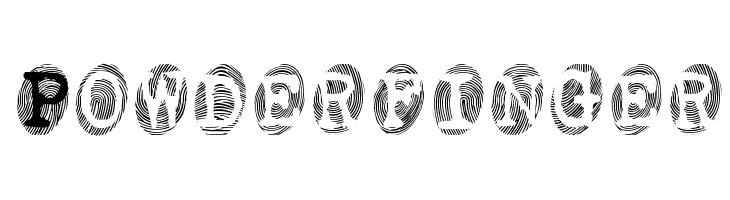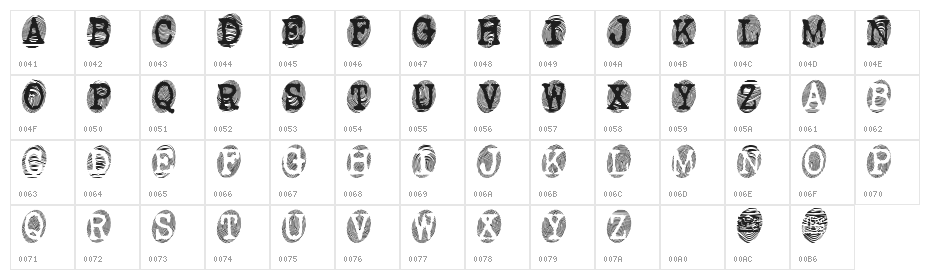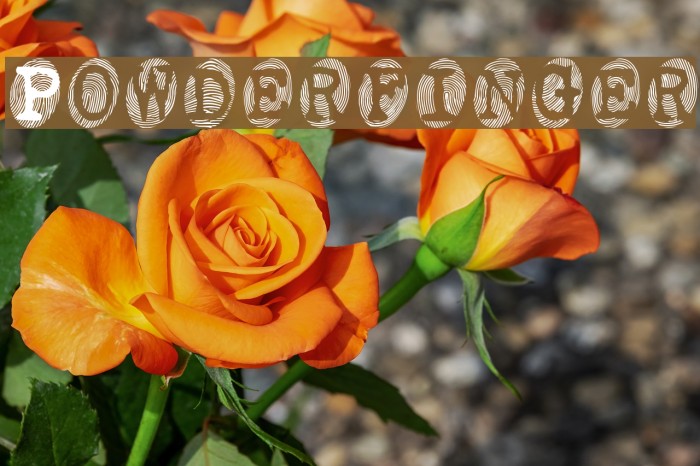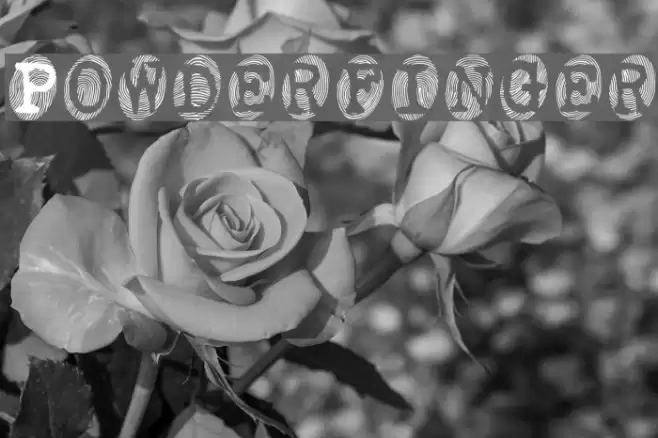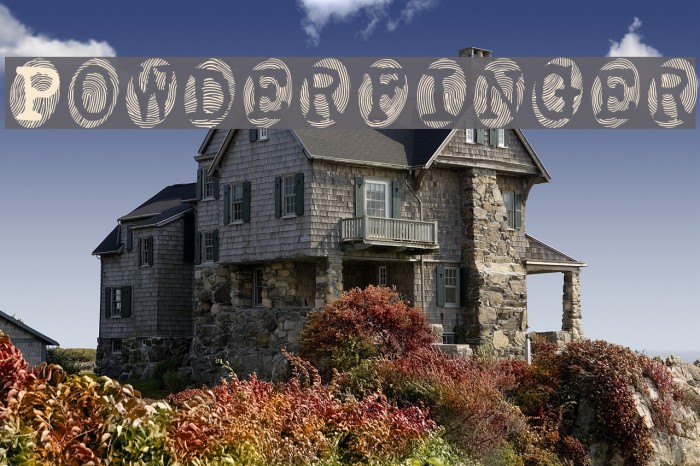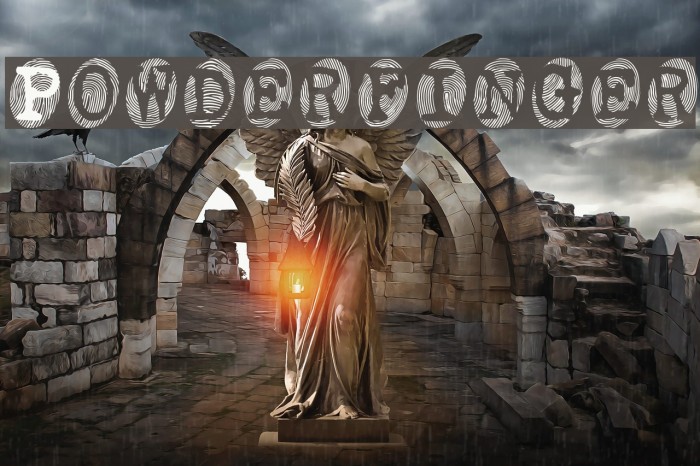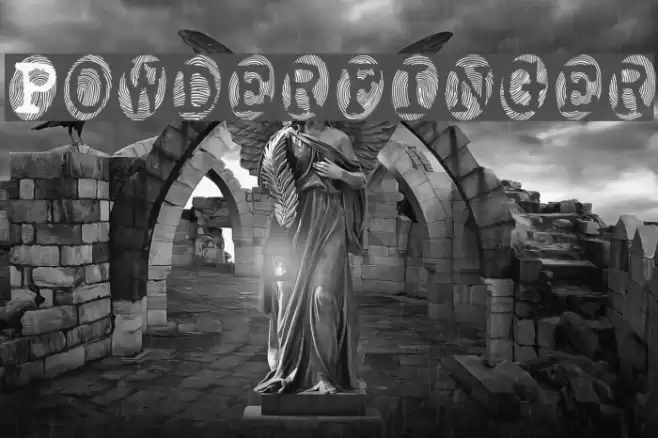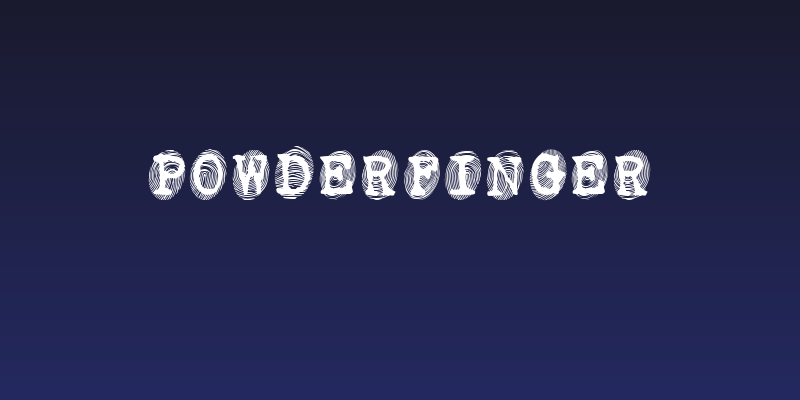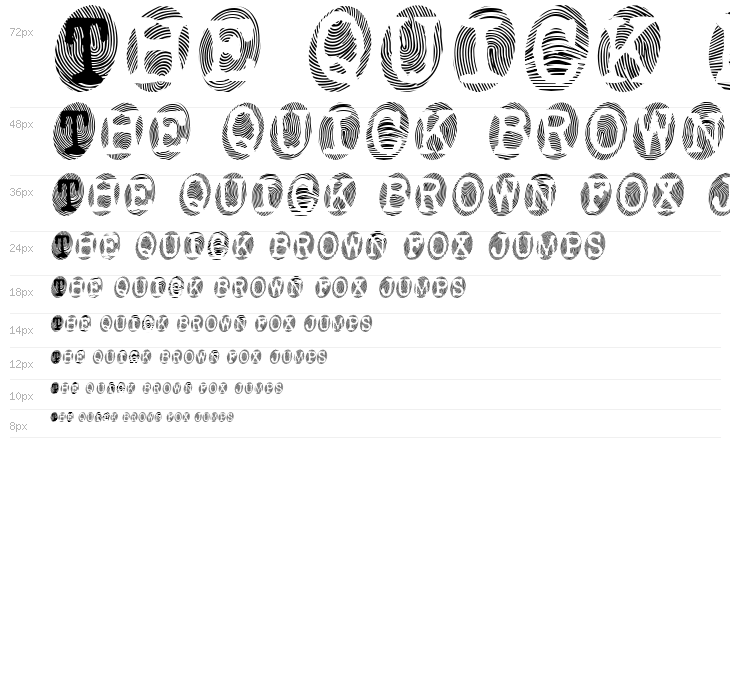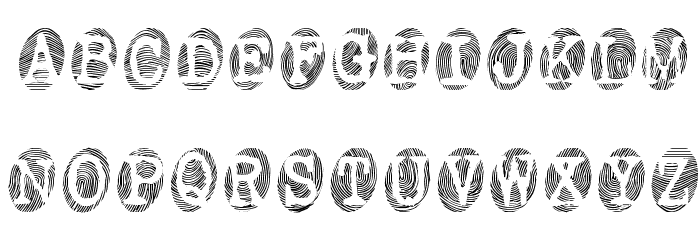
Powderfinger Font
Powderfinger Description
This font features a unique and artistic design, characterized by its intricate line patterns that form each letter. The letters are bold and rounded, with a textured appearance that resembles fingerprint patterns. This distinct style gives the font a dynamic and eye-catching look, making it ideal for creative and decorative purposes. The uppercase and lowercase letters maintain a consistent style, ensuring uniformity across different text applications. The numbers and special characters are also designed with the same attention to detail, providing a cohesive visual experience.
| Proposed Projects | Ideal for album covers, posters, branding projects, and artistic designs. |